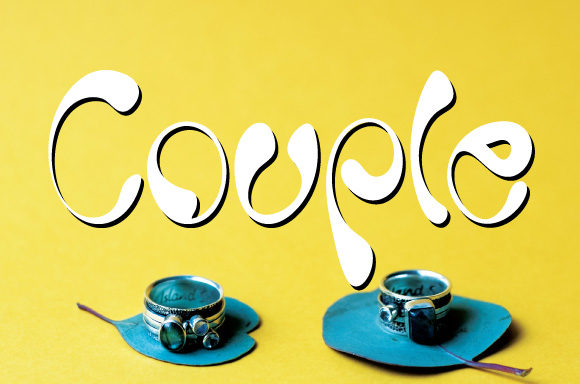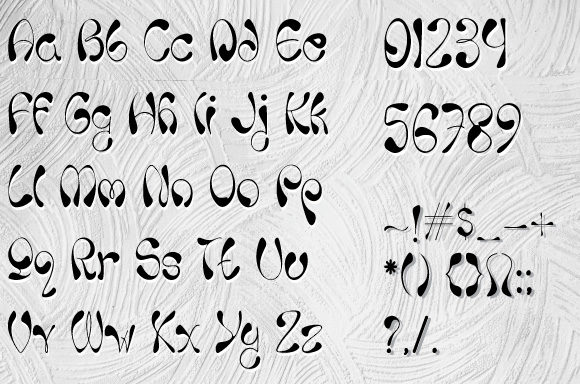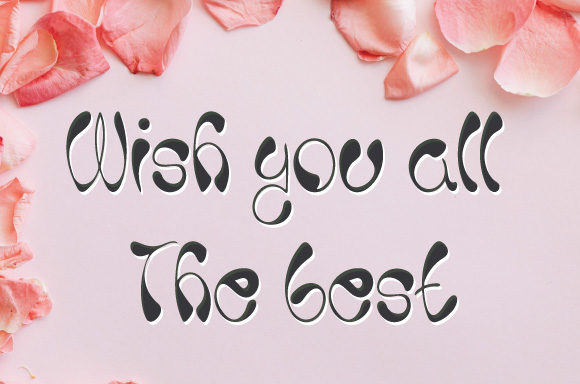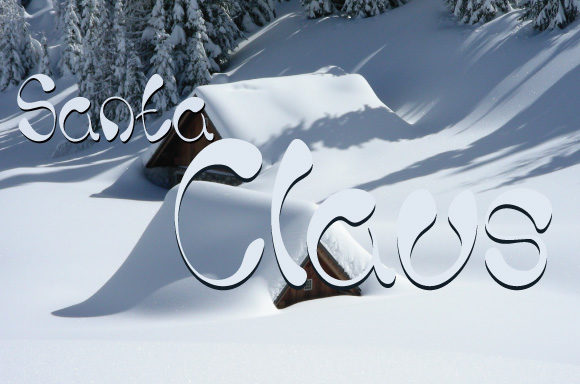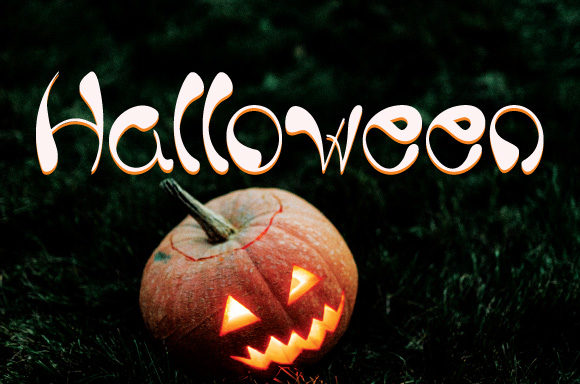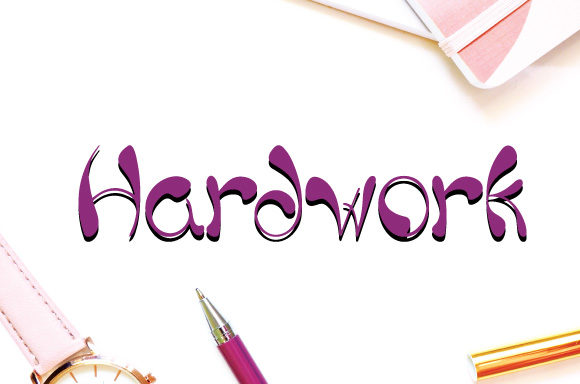
Introducing Dinabil Font: The Ultimate Choice for Playful Designs
Are you a designer, crafter, or educator looking for a font that embodies playfulness and authenticity? Look no further than Dinabil Font! This cute and colorful display font is perfect for any children activity or school project, and is sure to bring a touch of fun and excitement to your designs.
What is Dinabil Font?
Dinabil Font is a unique and charming font that features round lettered characters with a playful and whimsical feel. The font is designed to be eye-catching and engaging, making it perfect for use in children’s books, educational materials, and craft projects. With its bold and vibrant colors, Dinabil Font is sure to capture the attention of kids and adults alike!
Key Features of Dinabil Font
- Cute and Colorful: Dinabil Font features bright and cheerful colors that are sure to delight kids and add a touch of fun to your designs.
- Playful and Whimsical: The font’s round lettered characters have a playful and whimsical feel that’s perfect for children’s activities and school projects.
- Easy to Read: Despite its playful design, Dinabil Font is easy to read and understand, making it perfect for use in educational materials and children’s books.
- Versatile: Dinabil Font can be used in a variety of design projects, from children’s crafts and activities to educational materials and even adult designs that require a playful touch.
Uses for Dinabil Font
So, what can you use Dinabil Font for? The possibilities are endless! Here are a few ideas to get you started:
- Children’s Books: Use Dinabil Font to create engaging and interactive children’s books that kids will love.
- School Projects: Add a touch of fun and personality to school projects, such as posters, presentations, and worksheets.
- Craft Projects: Use Dinabil Font to create fun and colorful craft projects, such as birthday cards, party invitations, and DIY decorations.
- Educational Materials: Use Dinabil Font to create engaging and interactive educational materials, such as alphabet charts, number lines, and shape posters.
Why Choose Dinabil Font?
So, why choose Dinabil Font for your design projects? Here are just a few reasons:
- Unique and Eye-Catching: Dinabil Font is a unique and eye-catching font that’s sure to capture the attention of kids and adults alike.
- Playful and Whimsical: The font’s playful and whimsical design makes it perfect for use in children’s activities and school projects.
- Versatile: Dinabil Font can be used in a variety of design projects, from children’s crafts and activities to educational materials and even adult designs.
In conclusion, Dinabil Font is a cute and colorful display font that’s perfect for any children activity or school project. With its playful and whimsical design, Dinabil Font is sure to bring a touch of fun and excitement to your designs. Whether you’re a designer, crafter, or educator, Dinabil Font is a great choice for anyone looking to add a little personality and whimsy to their work. So why wait? Download Dinabil Font today and start creating fun and engaging designs that kids will love!
- Pair with Other Fonts: Try pairing Dinabil Font with other fonts to create a unique and interesting design.
- Experiment with Colors: Don’t be afraid to experiment with different colors and color combinations to add an extra touch of fun and personality to your designs.
- Use in Digital Designs: Dinabil Font can be used in digital designs, such as social media graphics and blog posts, to add a touch of whimsy and personality.